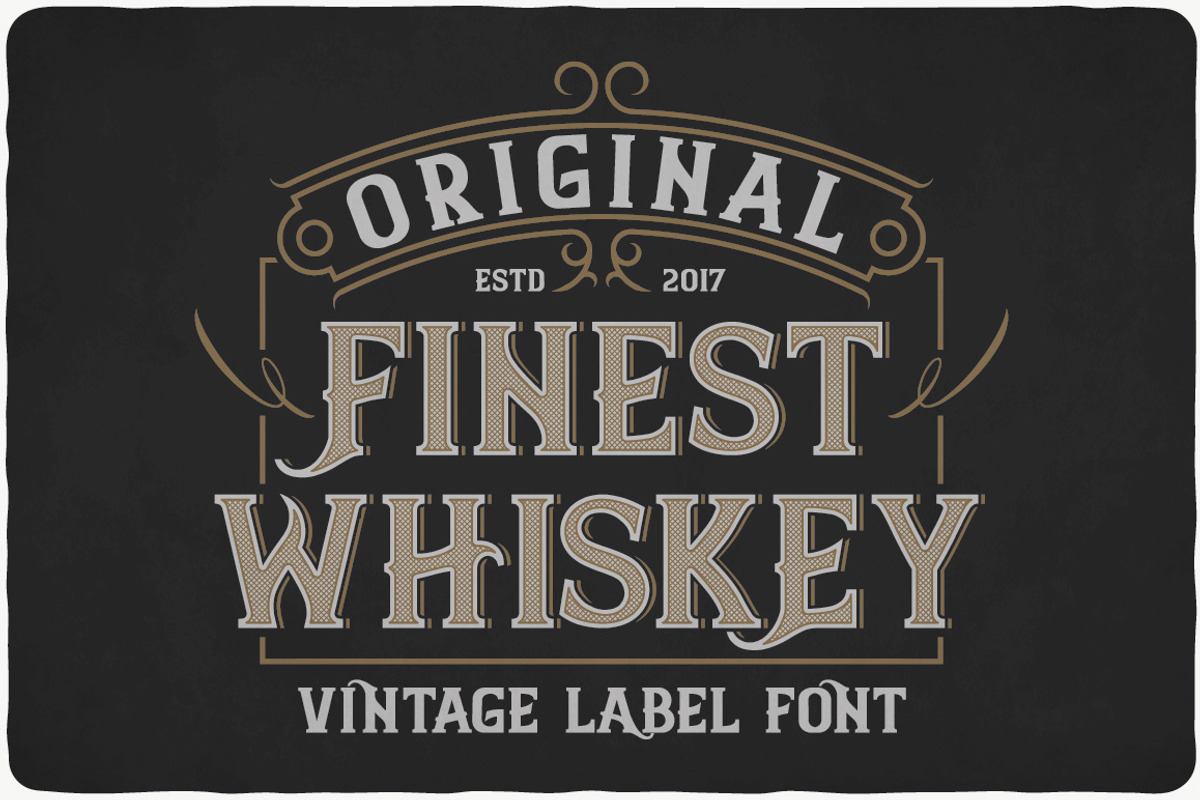
Finest Whiskey Font Free Download is a strong and distinctive display typeface inspired by the bold character of whiskey branding. With its vintage flair, sharp serifs, and rugged edges, this font exudes masculinity and timeless charm. Perfect for liquor branding, bar menus, rustic signage, and craft beer labels, Finest Whiskey adds personality and elegance to any design.
The font offers an old-world style with a modern twist, making it suitable for both traditional and contemporary projects that want to stand out with strength and class.